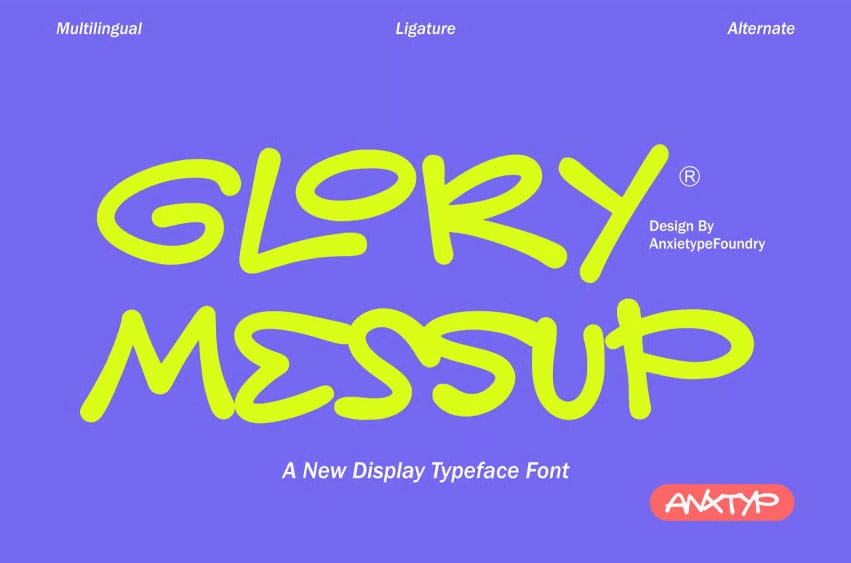
AT Glory Messup Font is an exquisite display font meticulously crafted by Anxietype Foundry. Exuding sophistication and a modern edge, this font perfectly embodies the union of style and functionality.
Glory Messup effortlessly enhances branding aesthetics adds an opulent touch to websites, gives streetwear a unique twist, and seamlessly fits into fashion projects or app interfaces. Experience the transformative power of typeface with Glory Messup.